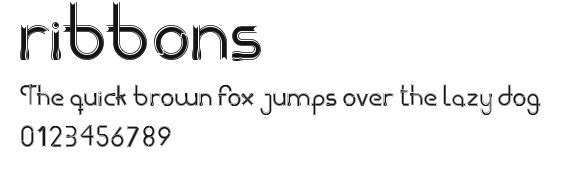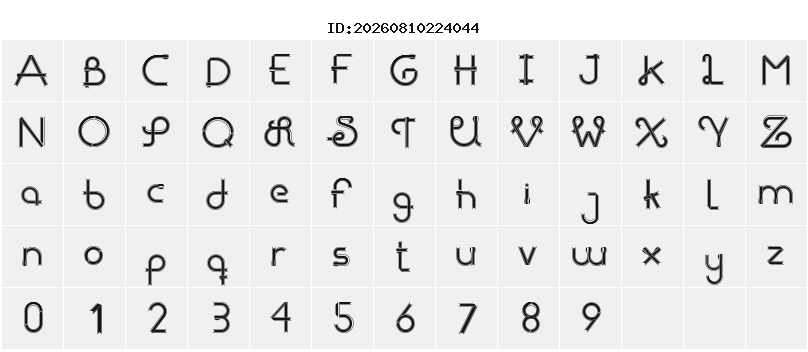
ribbons Preview
• Font Name: ribbons
• Font ID: 1.000;PYRS;ribbons-Regular
• Full Font Name: ribbons Regular
• Version: Version 1.00 2014
• PostScript Name: ribbons-Regular
• Character Count: 189
• Designer: rafael
• Manufacturer: PYRS Fontlab Ltd. / Made with FontLab
About ribbons.ttf
ribbons.ttf is a modern, elegant sans-serif font designed for ultimate readability and visual harmony. Perfect for branding, headlines, web design, and print materials.